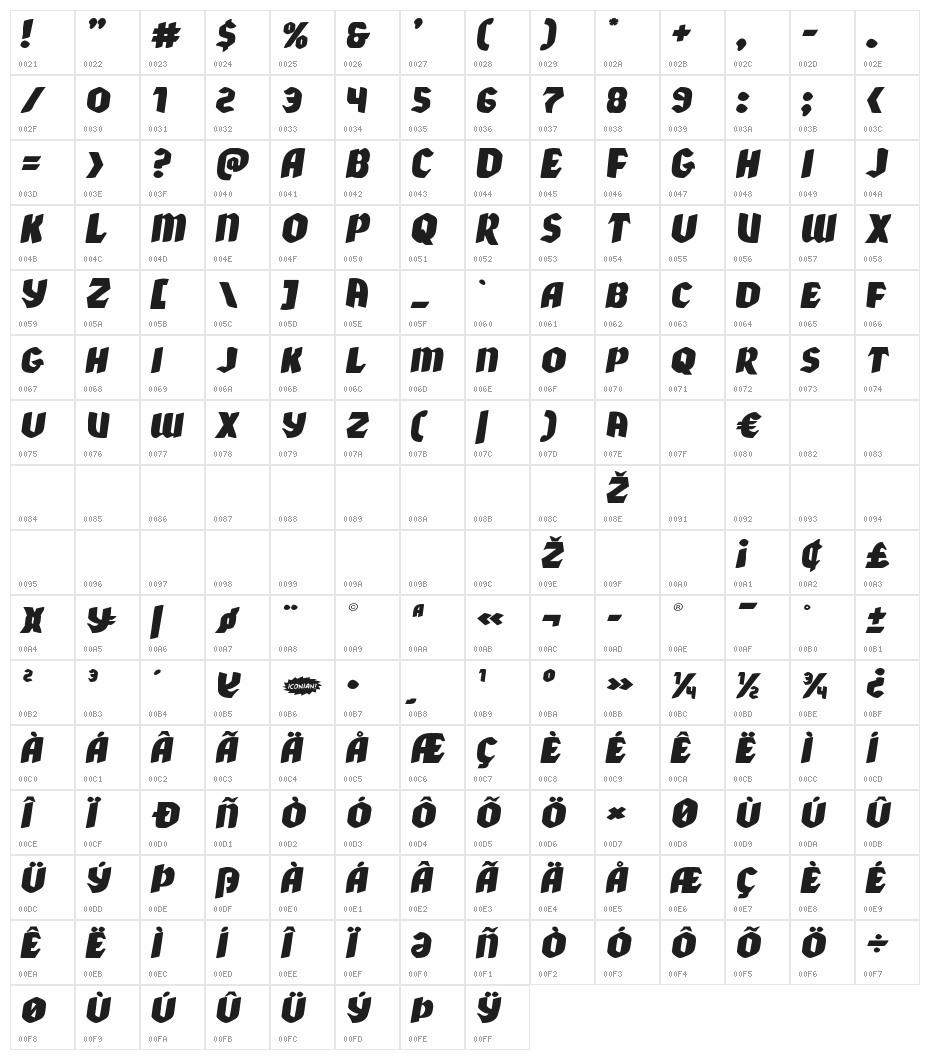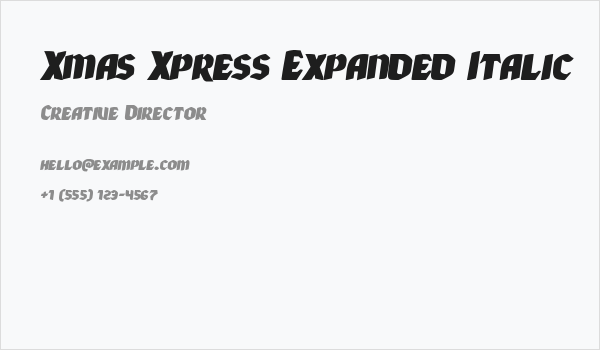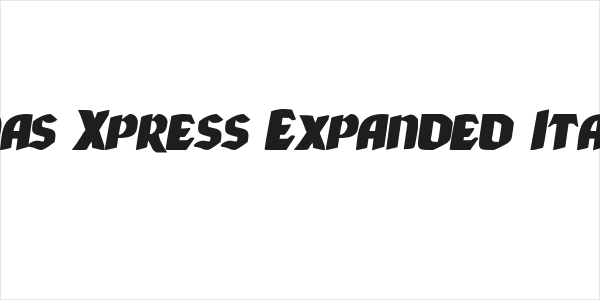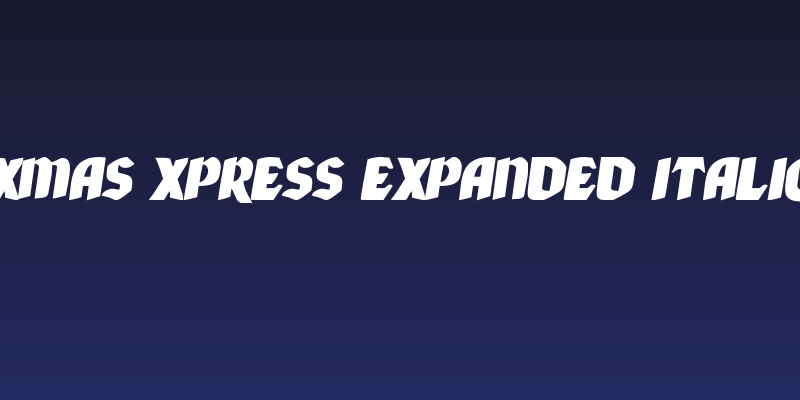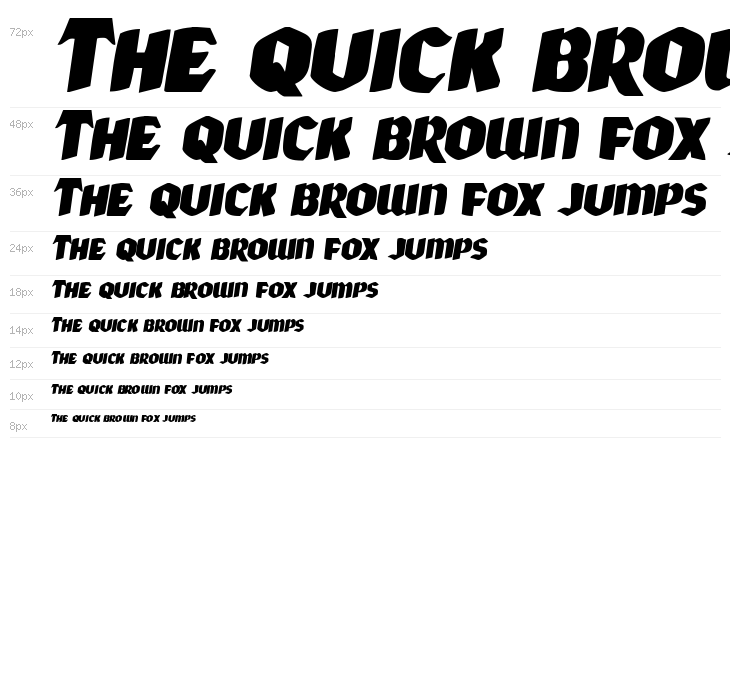
Xmas Xpress Expanded Italic Font
Xmas Xpress Expanded Italic Description
This font features a bold and dynamic style with an italic slant, giving it a sense of movement and energy. The characters are heavily weighted, with thick strokes that create a strong visual impact. The expanded width of the letters adds to its bold presence, making it stand out in any design. The font has a decorative flair, with unique cuts and angles that add a playful yet assertive character. The spacing between characters is relatively tight, which enhances its cohesive and compact appearance. This font is ideal for projects that require a strong, attention-grabbing typeface.
| Proposed Projects | Ideal for holiday-themed designs, posters, headlines, and branding that require a festive and bold look. |